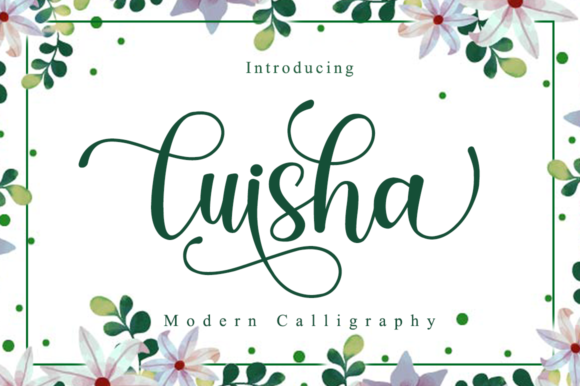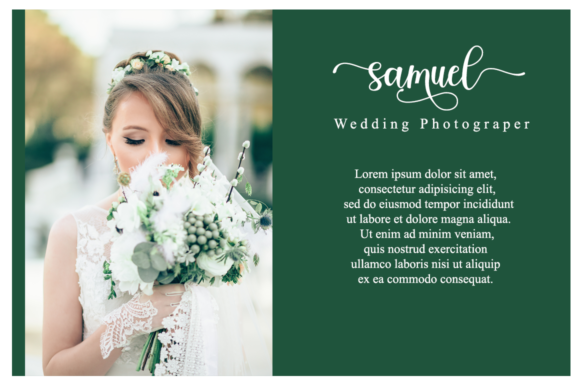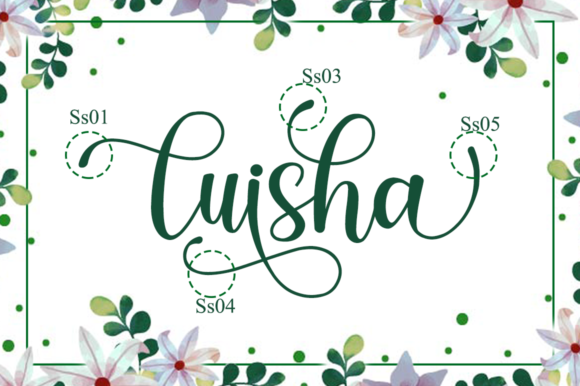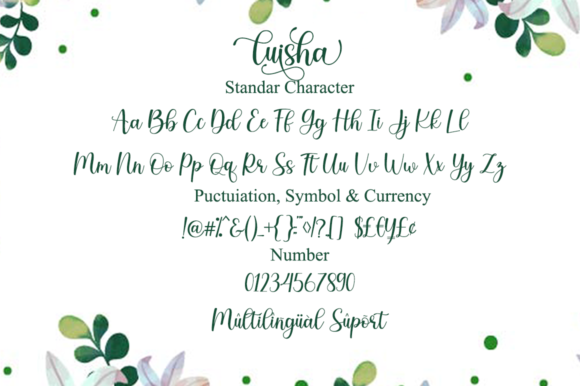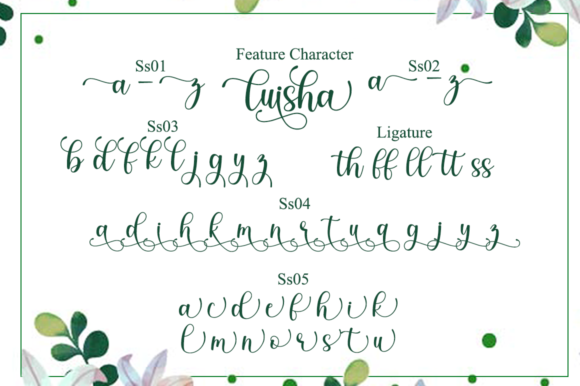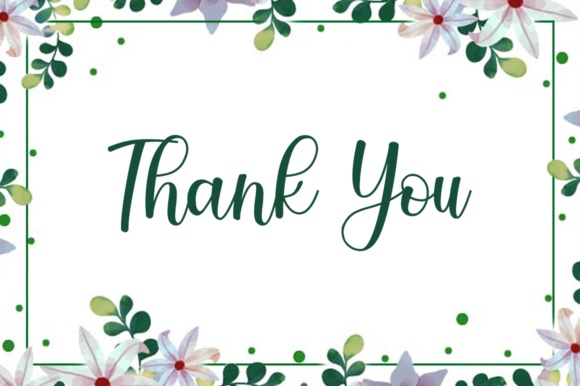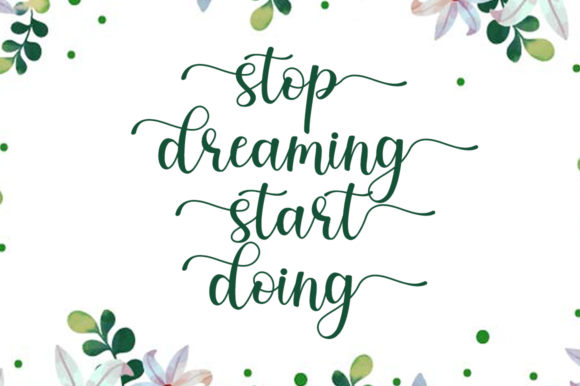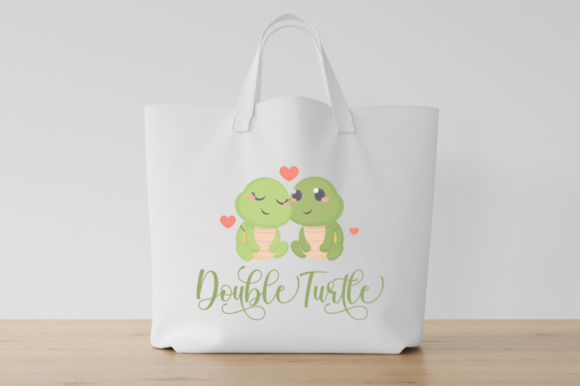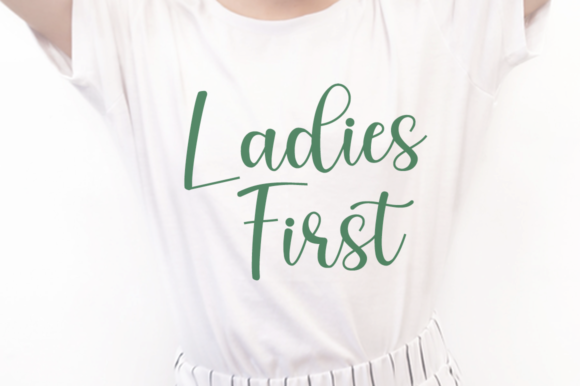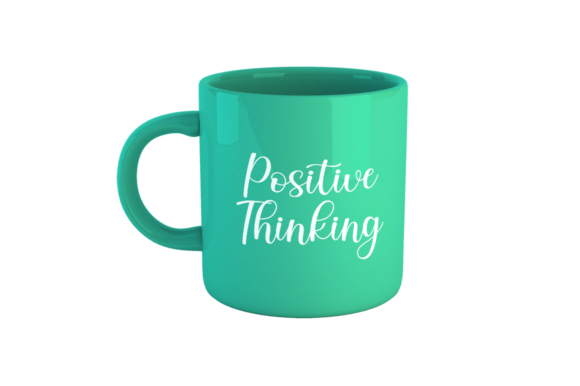
Luisha Font
About Luisha Font
Luisha is a fancy, contemporary script font. It features gorgeous swashes and ligatures that make this script incredibly versatile. Whether you’re looking for fonts for Instagram or calligraphy scripts for DIY projects, Luisha will turn any creative idea into a true piece of art!